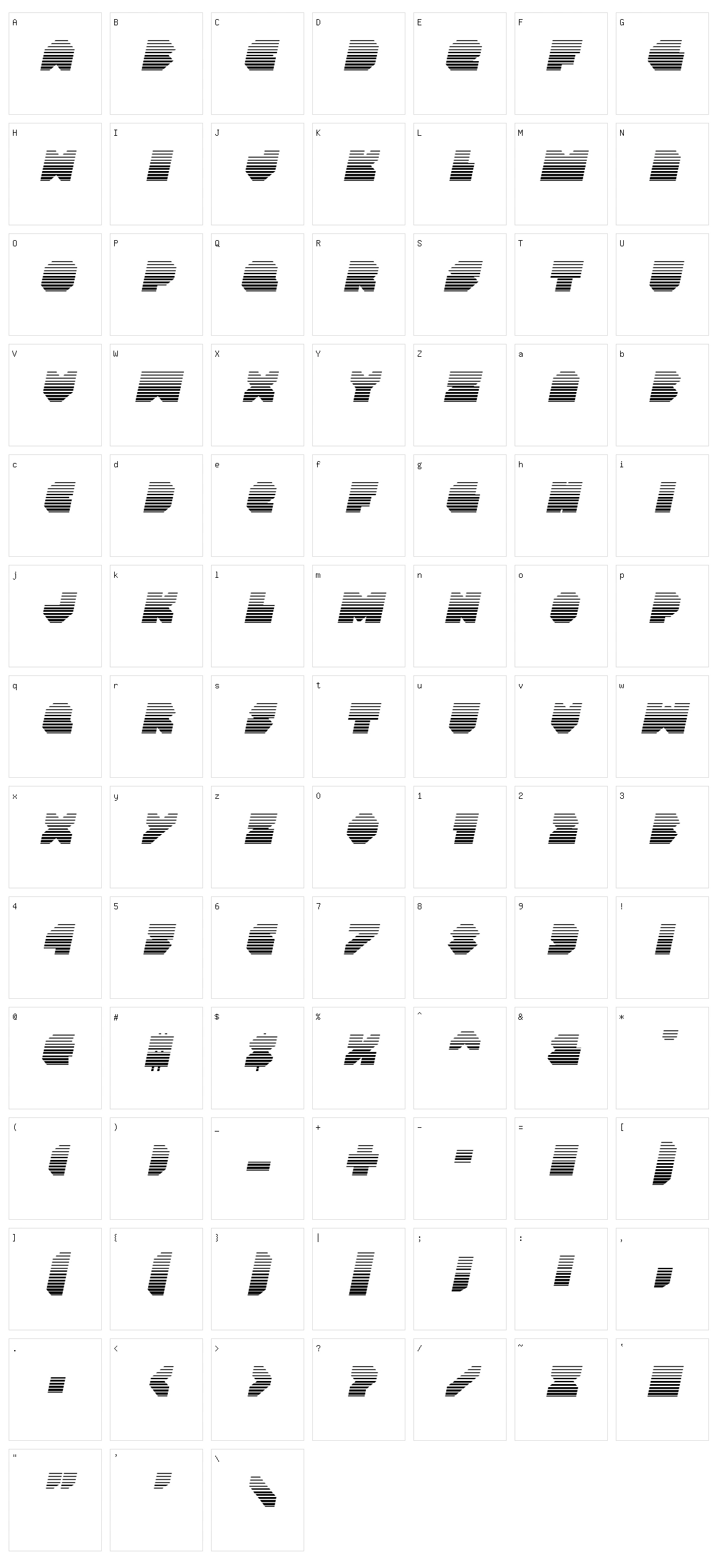
This font comes with the following 21 versions: Regular, Italic, Condensed, Condensed Italic, Expanded, Expanded Italic, Outline, Outline Italic, 3D, 3D Italic, Laser, Laser Italic, Academy, Academy Italic, Gradient, Gradient Italic, Halftone, Halftone Italic, Chrome, Chrome Italic, and Leftalic.